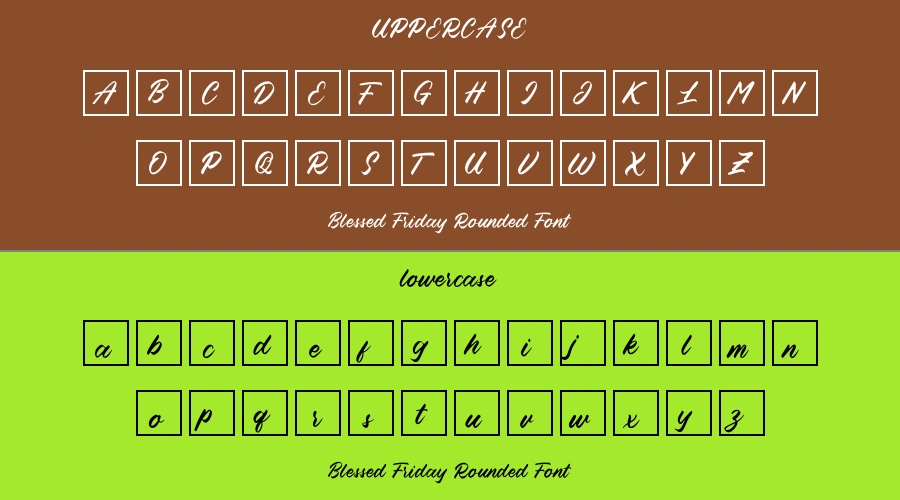
About Blessed Friday Rounded Font
Blessed Friday Rounded Font stands out for its distinctive combination of balanced proportions and refinement. Ideal for newspaper text, it provides the refinement and artistic value that professional projects demand. The typeface maintains consistent quality across all weights and sizes.
Key features include refined tapered strokes and practical standard ligatures, enhancing typographic expression. In compliance seals applications, Blessed Friday Rounded Font demonstrates exceptional data presentation. The letterfit and institutional acceptance contribute to its distinctive character and professional appeal.